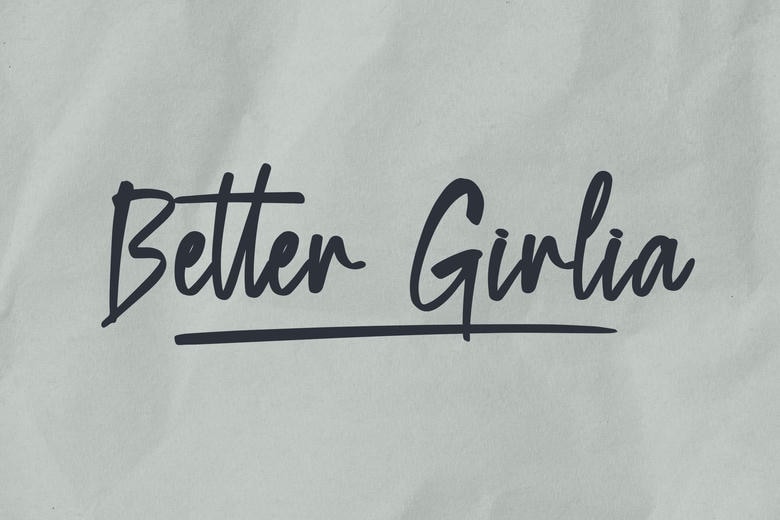
Better Girlia Font
Better Girlia is quite a beautiful handwriting font containing natural brush stroke. Slab designer provides an array of characters with distinctive stroke, and the fact is being artistic, makes it perfect for any design project; logos, product packaging, invitation designers among others.
Better Girlia Handwritten Font